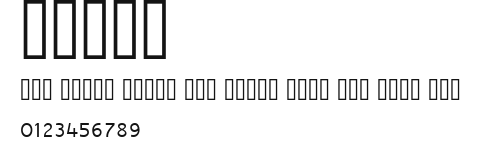
Raavi Preview
• Font Name: Raavi
• Font ID: Raavi Regular
• Full Font Name: Raavi
• Version: Version 1.06
• PostScript Name: Raavi
• Character Count: 130
• Designer: Raghunath Joshi (Type Design Director), Apurva Joshi
• Description: Raavi is an OpenType font for the Indic script- Gurmukhi. It is based on Unicode, contains TrueType outlines and has been designed for use as a UI font.
About Raavi.ttf
Raavi.ttf is a modern, elegant sans-serif font designed for ultimate readability and visual harmony. Perfect for branding, headlines, web design, and print materials.